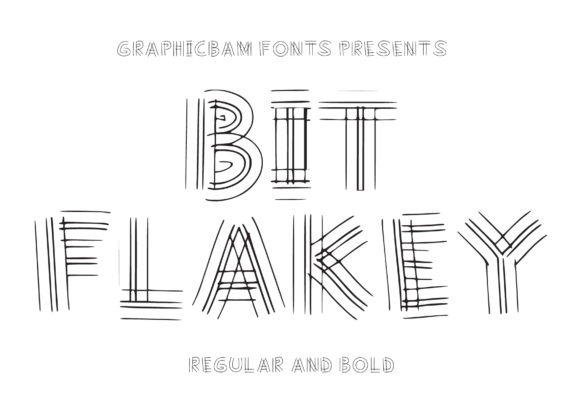
Welcome to the unique world of Bit Flakey Font, a display typeface that's full of personality and charm. Its playful and slightly quirky nature makes it the perfect choice for designers seeking to inject a touch of whimsy into their creations.
With its distinctive letterforms, Bit Flakey commands attention and adds a dash of lightheartedness to any project. Its friendly and approachable demeanor makes it ideal for informal settings, adding a personal touch to your designs.
Feel the creative freedom to employ Bit Flakey Font in a myriad of projects, from eye-catching headlines and logos to playful posters and social media graphics. Its adaptability shines through whether you're designing for print or digital mediums.
At its core, Bit Flakey Font is a font of contrasts. Its playful curves and sharp angles create a captivating visual tension, while its thick and thin strokes add depth and dimension to your designs. The result is a font that's both fun and sophisticated, casual yet elegant.
Experience the joy of using Bit Flakey Font and let your creativity soar. Its user-friendly nature makes it accessible to designers of all skill levels, allowing you to effortlessly transform your design ideas into reality.
Embrace the uniqueness of Bit Flakey Font and unlock a world of creative possibilities. Its versatility and charm will elevate your designs to new heights, leaving a lasting impression on your audience. Download Bit Flakey Font today and embark on a typographic adventure that's anything but ordinary!